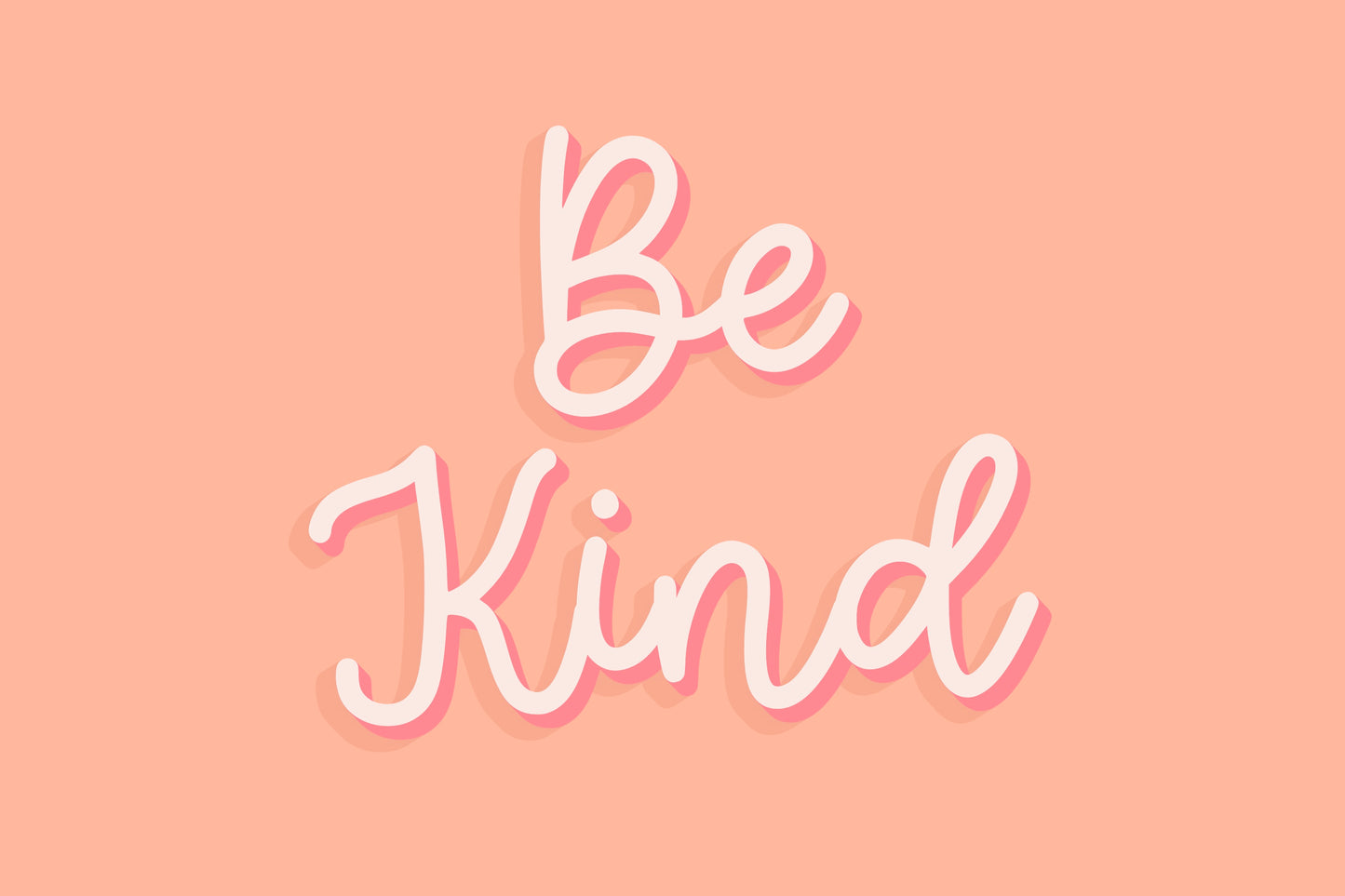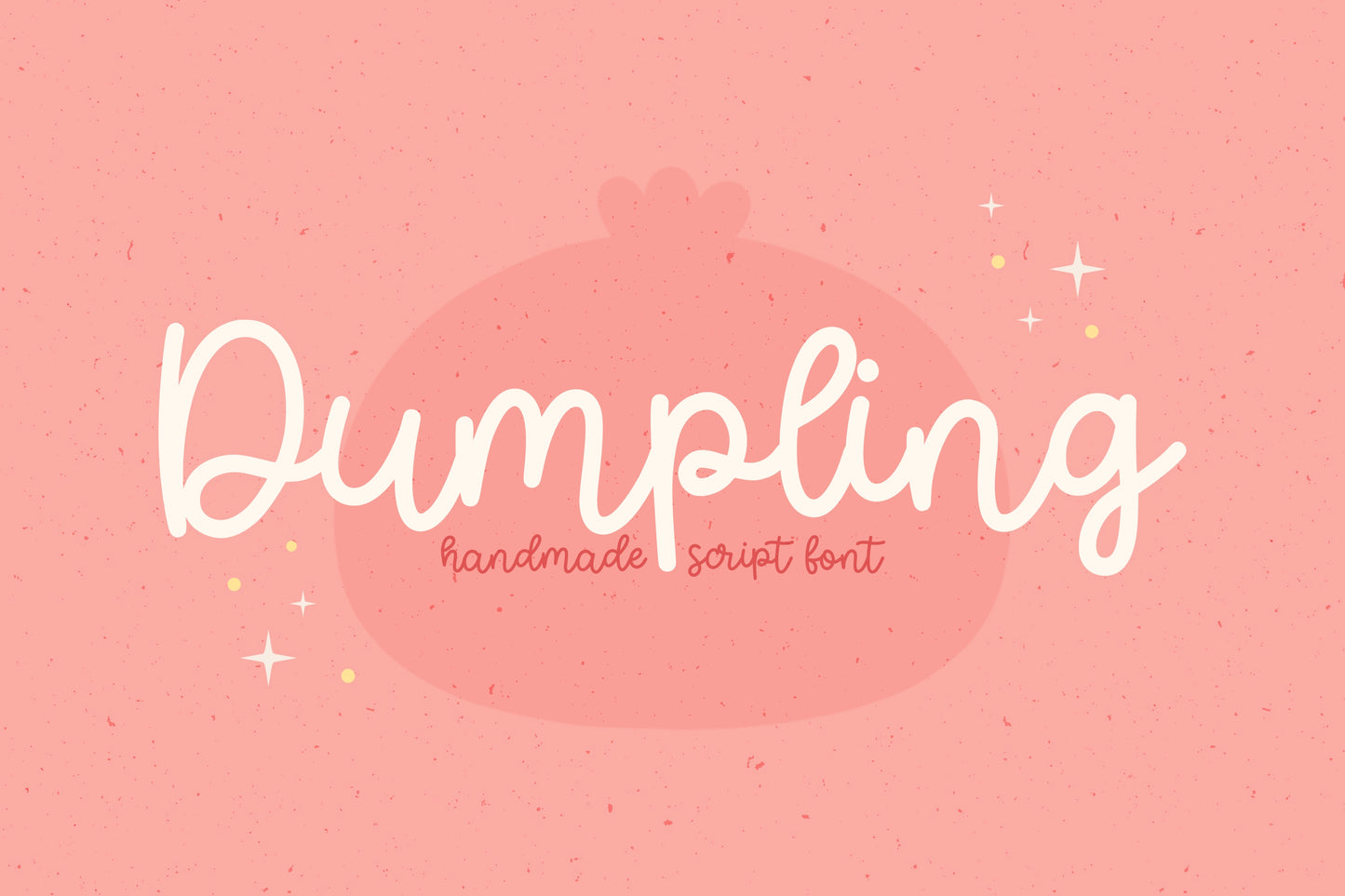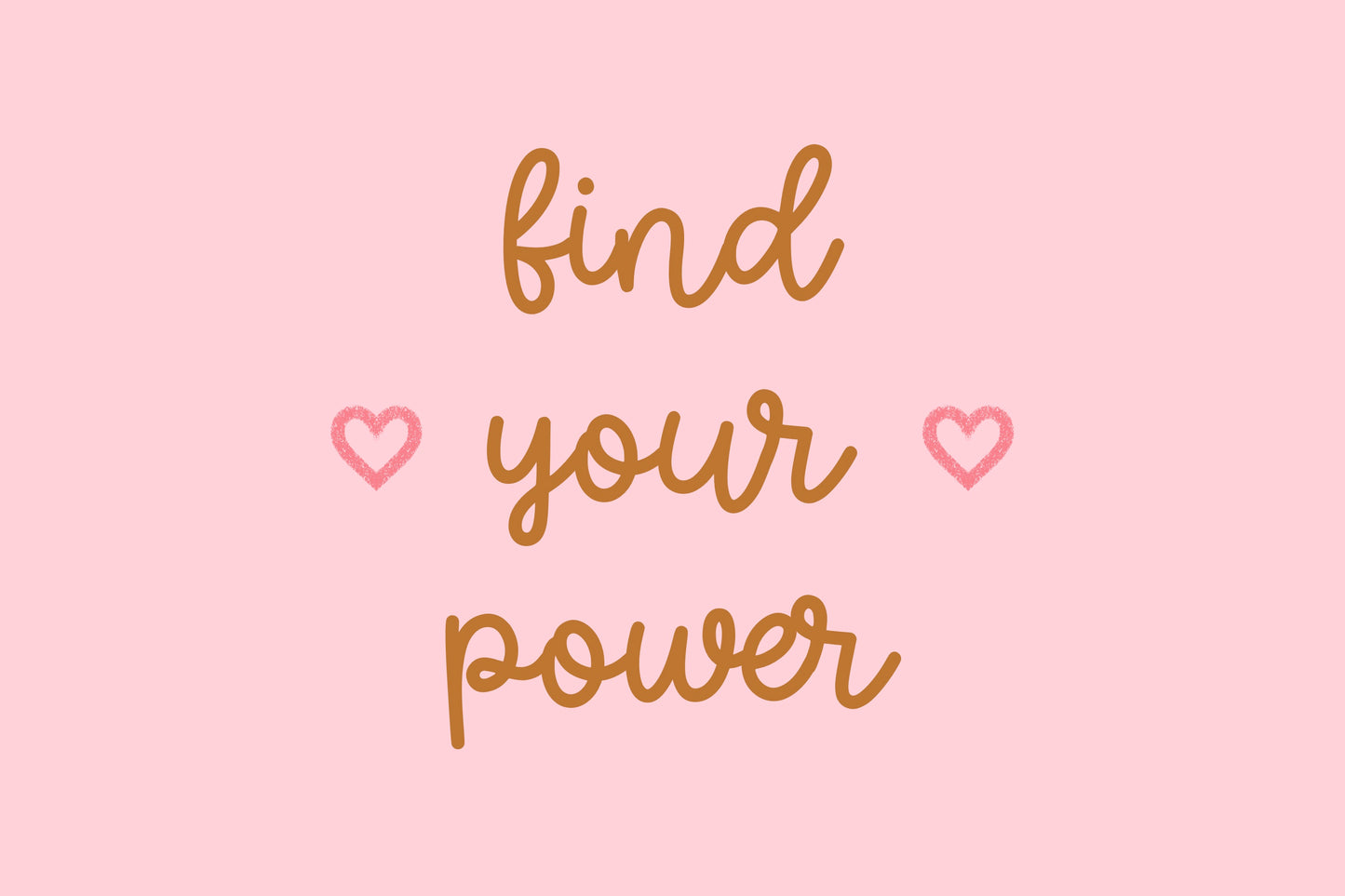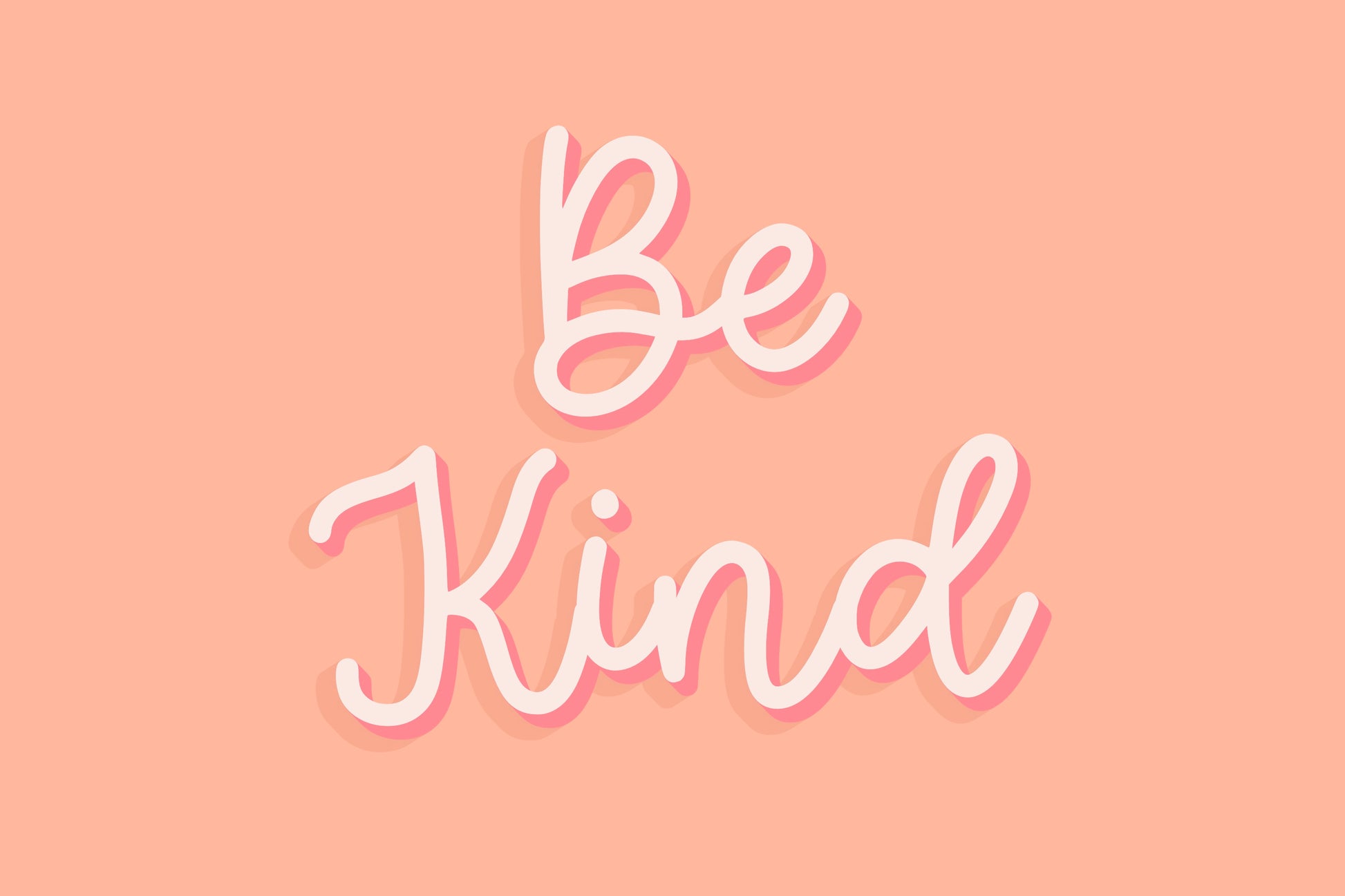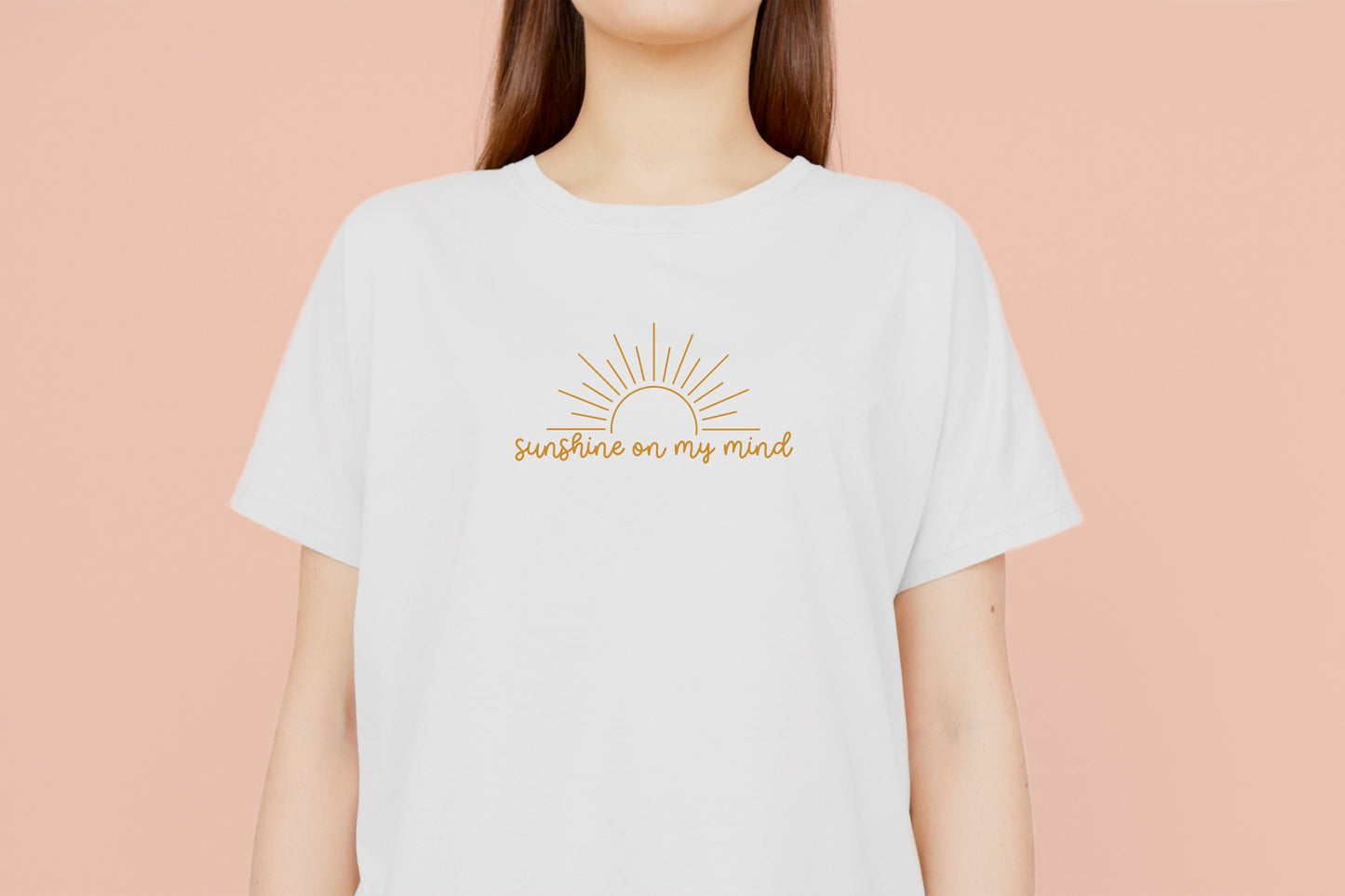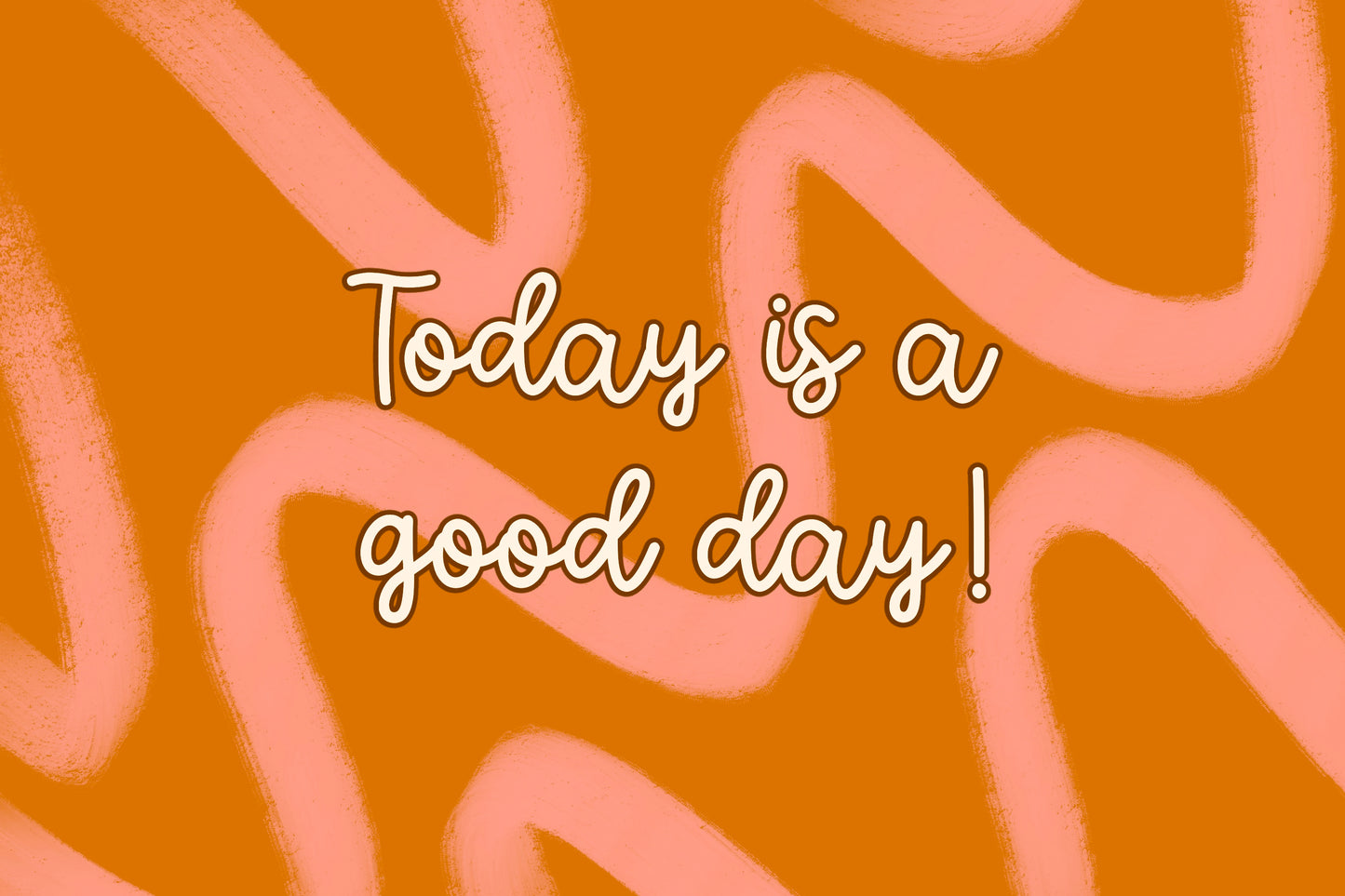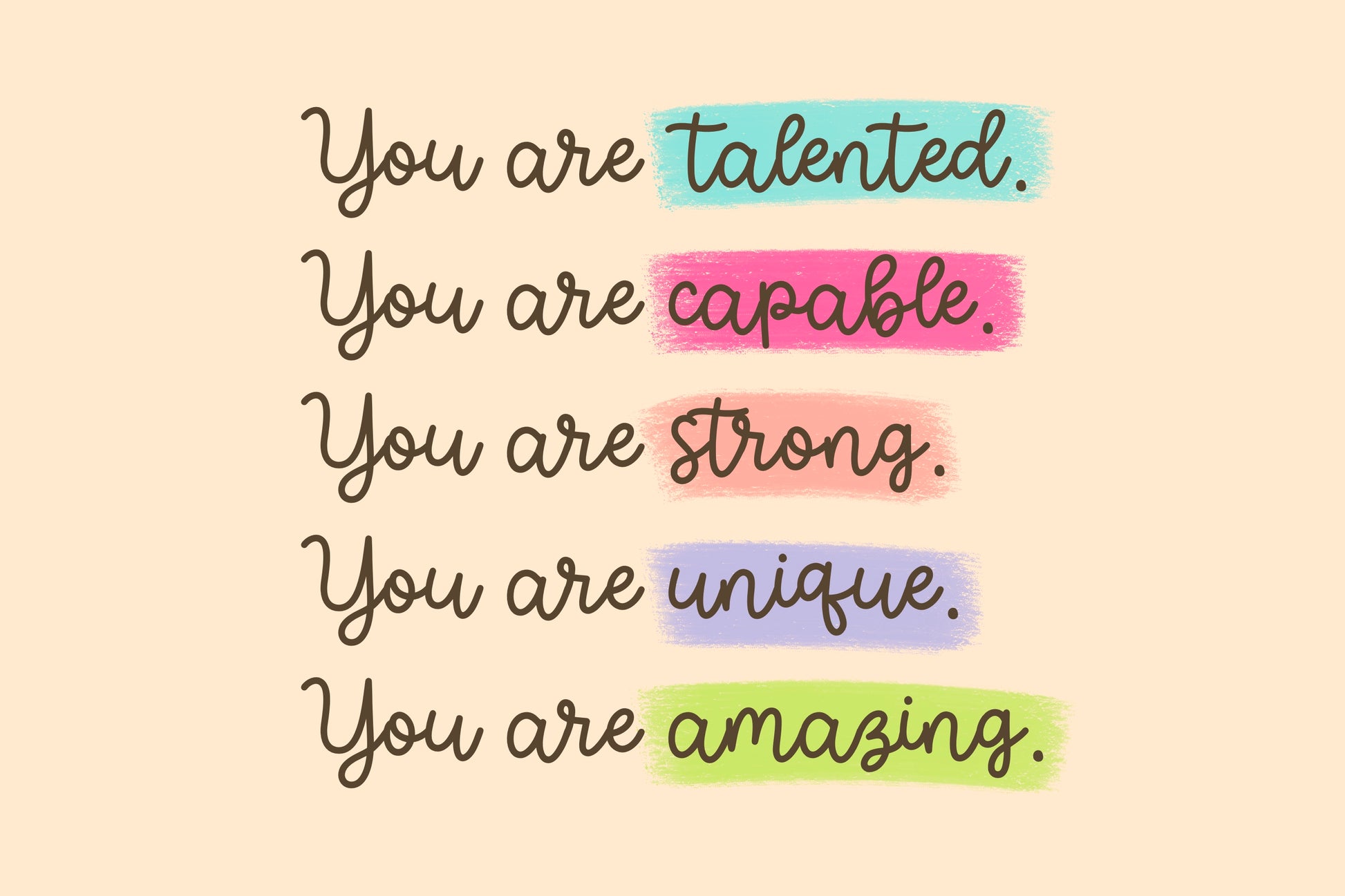
Dumpling Handwritten Script Font
Introducing the Dumpling handwritten/hand drawn font. This fun, slightly bouncy monoline font will add cute, playful, handmade touch to your design! Its versatility makes this font great for casual, informal designs, but also formal and elegant occasions too!